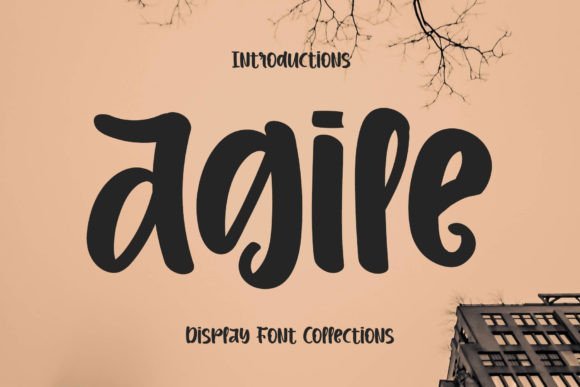
Discover the Perfect Script for Your Next Project
Remember the thrill of brainstorming a new project? The excitement of bringing your ideas to life, and the rush of seeing them take shape? That’s what it’s all about – creating something unique, something special, and something that truly reflects your vision.
For designers, finding the right font can be the key to unlocking that creative magic. That’s where Agile Font comes in – a stylish and fun script font designed to add a whimsical touch to any project. From logos and branding to labels and special events, Agile Font is the perfect companion for designers who want to make a lasting impression.
With Agile Font, you’ll have the freedom to explore new ideas and bring your imagination to life. Its versatility and charm make it an invaluable addition to any designer’s toolkit, and we can’t wait to see what amazing projects you’ll create with it.
Agile Font Key Features
- Unique Characteristics: Agile Font features a unique blend of modern and elegant design elements, making it suitable for a wide range of applications, including business, education, and creative industries.
Agile Font Review
Overall, I have mixed feelings about Agile Font. As a designer, I appreciate its modern and sleek aesthetic, which can work well for a variety of projects ✨. The font’s clean lines and simplicity make it easy to read and understand, even at smaller font sizes.
The Agile Font family includes a range of weights, from light to bold, which provides flexibility for designers to experiment with different typography styles. This is particularly useful for creating visually appealing headings and titles ✨.
- ⚠️ Limited language support: Agile Font only includes a basic character set, which may not be suitable for projects that require support for multiple languages.
- ⚠️ Limited OpenType features: Compared to other fonts in the market, Agile Font lacks some advanced OpenType features, which can limit its use in more complex typography projects.
- ⚠️ Not ideal for body text: While Agile Font works well for headings and titles, it may not be the best choice for body text due to its relatively small character set and limited language support.
Overall, Agile Font is a solid choice for designers who want a modern and clean font for headings and titles. However, its limitations may make it less suitable for more complex projects or those that require extensive language support.
Agile Font Practical Application Guide
For optimal results, use Agile Font in conjunction with a clear and concise design. Avoid using too many font sizes and styles, as this can create visual clutter. Experiment with different font combinations to achieve a unique look.
Agile Font is suitable for a wide range of applications, including:
- Business presentations
- Marketing materials
- Website design
- Print materials
Alternatives to Agile Font for Designers
Comparison to Agile Font: Open Sans has a similar modern feel to Agile Font but with a more rounded and friendly appearance. Agile Font has a slightly more geometric and edgy look.
Yes, Agile Font is highly customizable. You can adjust font weights, styles, and sizes using the font’s CSS file or by using a CSS preprocessor like Sass or Less. Additionally, Agile Font supports advanced OpenType features, such as ligatures and contextual alternates, which can be enabled using the font’s CSS file.